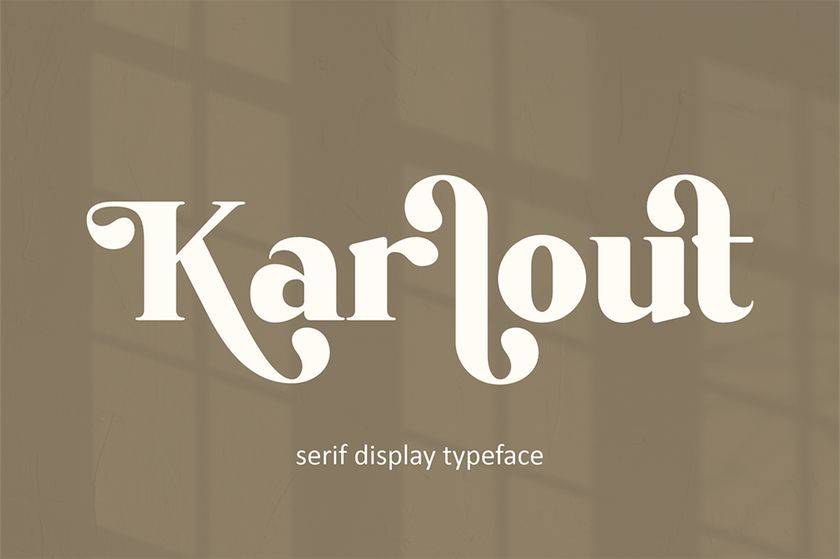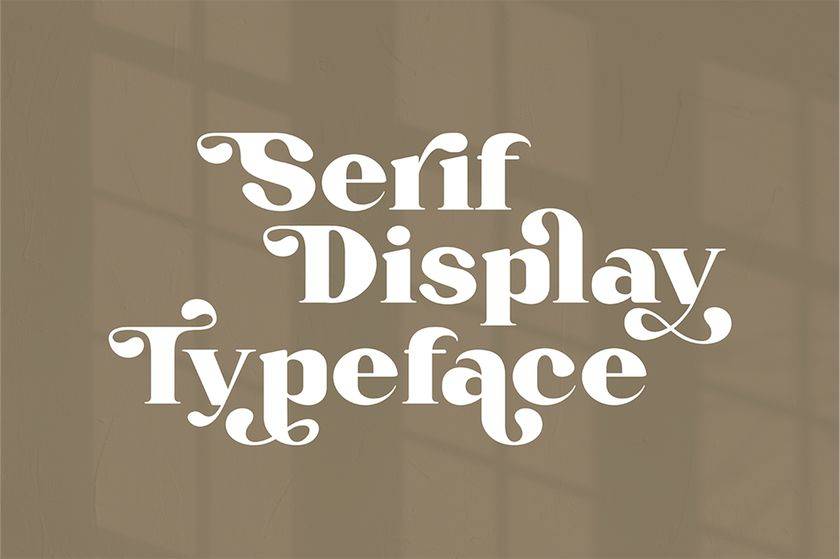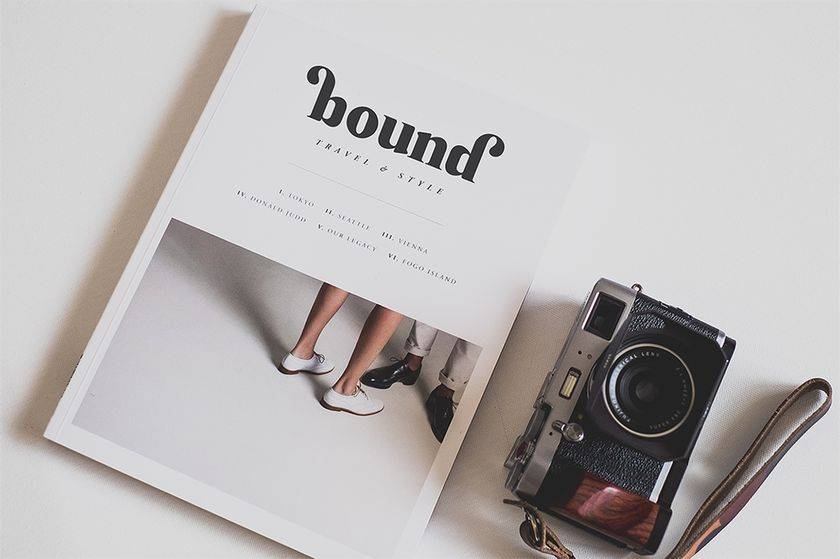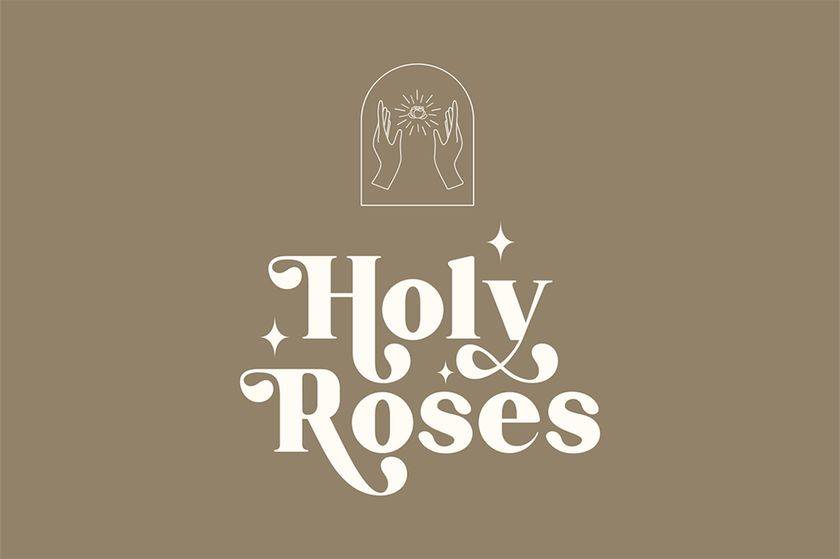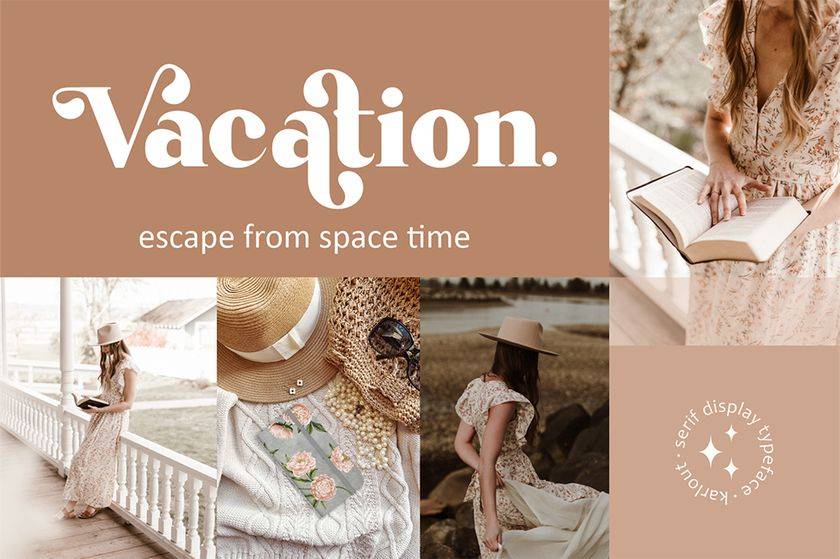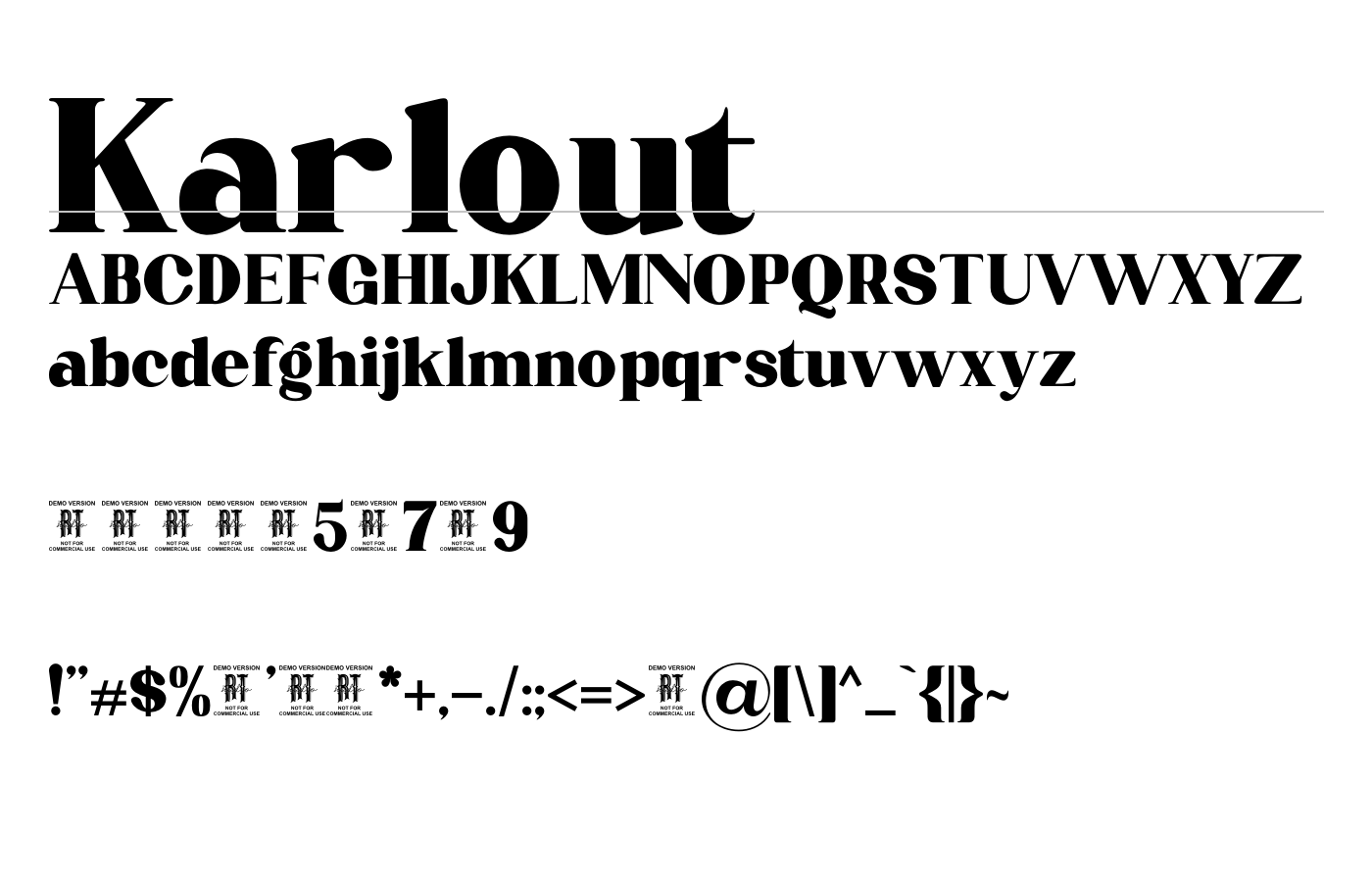
Karlout is a bold serif font with a strong presence, featuring high contrast between thick and thin strokes and distinctive bracketed serifs that give it a classic yet commanding look. Its slightly condensed structure and double-story letterforms make it ideal for headlines, logos, and editorial use where a confident, elegant style is desired. This font conveys a sense of sophistication and tradition, perfect for fashion branding, luxury packaging, and striking editorial layouts.
Karlout Font
About Karlout Font
| Font family | Karlout Font |
| Designer | Raditya Putra Pratama |